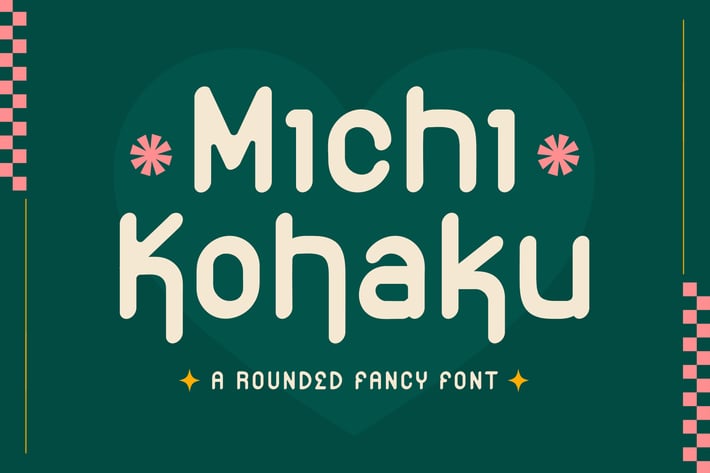
Michi Kohaku - A Rounded Fancy Font
Introducing "Michi Kohaku" - a rounded fancy font that brings a delightful blend of playfulness and elegance to your designs.
With its smooth curves and whimsical details, "Michi Kohaku" adds a touch of personality and charm to any project, making it perfect for branding, posters, invitations, and more.
Embrace the versatility of "Michi Kohaku" as it effortlessly enhances your designs with its unique style and rounded edges.
Step into the world of rounded typography with "Michi Kohaku" and let your creativity shine with its playful yet sophisticated appearance.
– Lowercase
– Ligature
– Alternate
– Multilingual Support